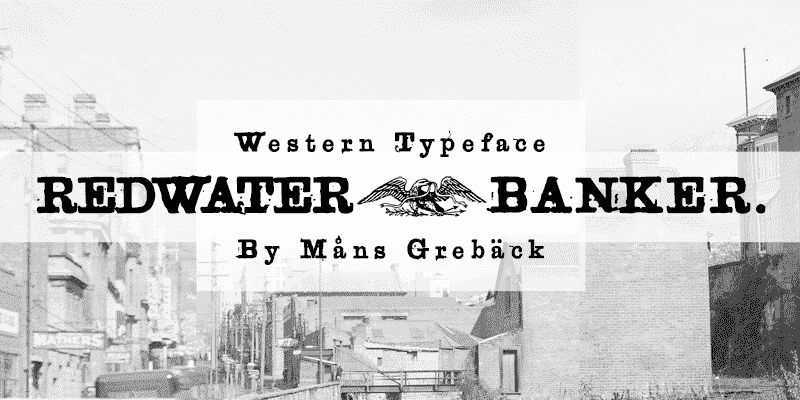
Redwater Banker PERSONAL USE Italic
This bold and wide eroded vintage font, Redwater Banker Italic, is designed by Mans Greback for display projects. Use it for large posters, logos, book covers and headlines to create a unique and eye-catching look.
Use the parenthesis characters ( ) [ ] { } to make symbols like eagles and crowns.